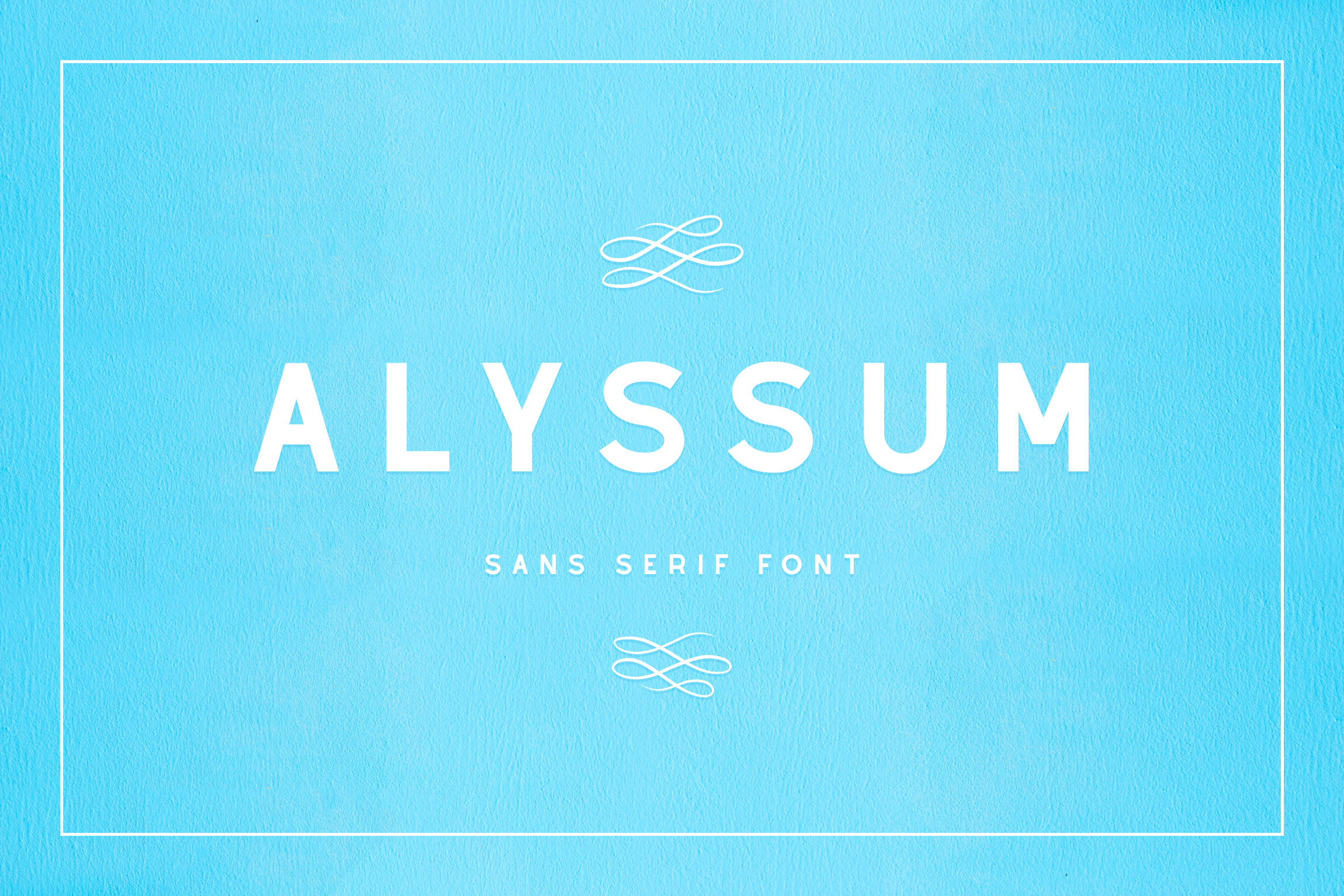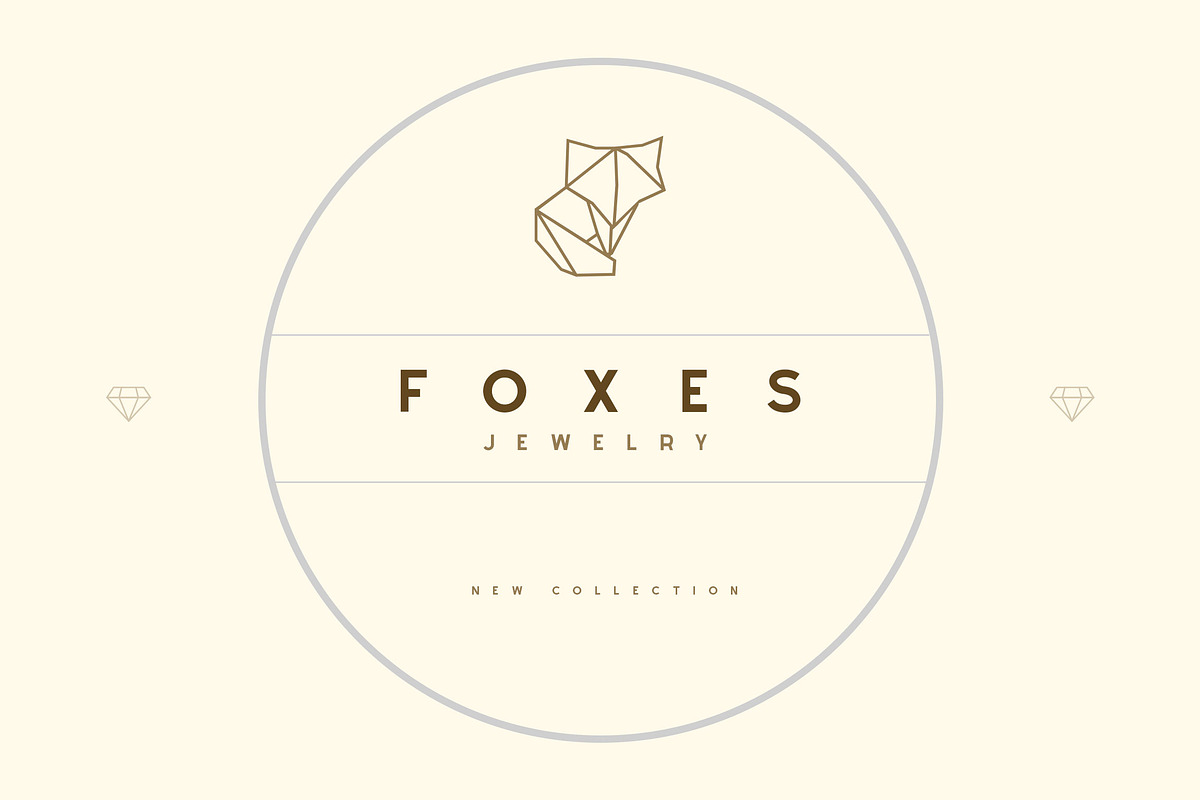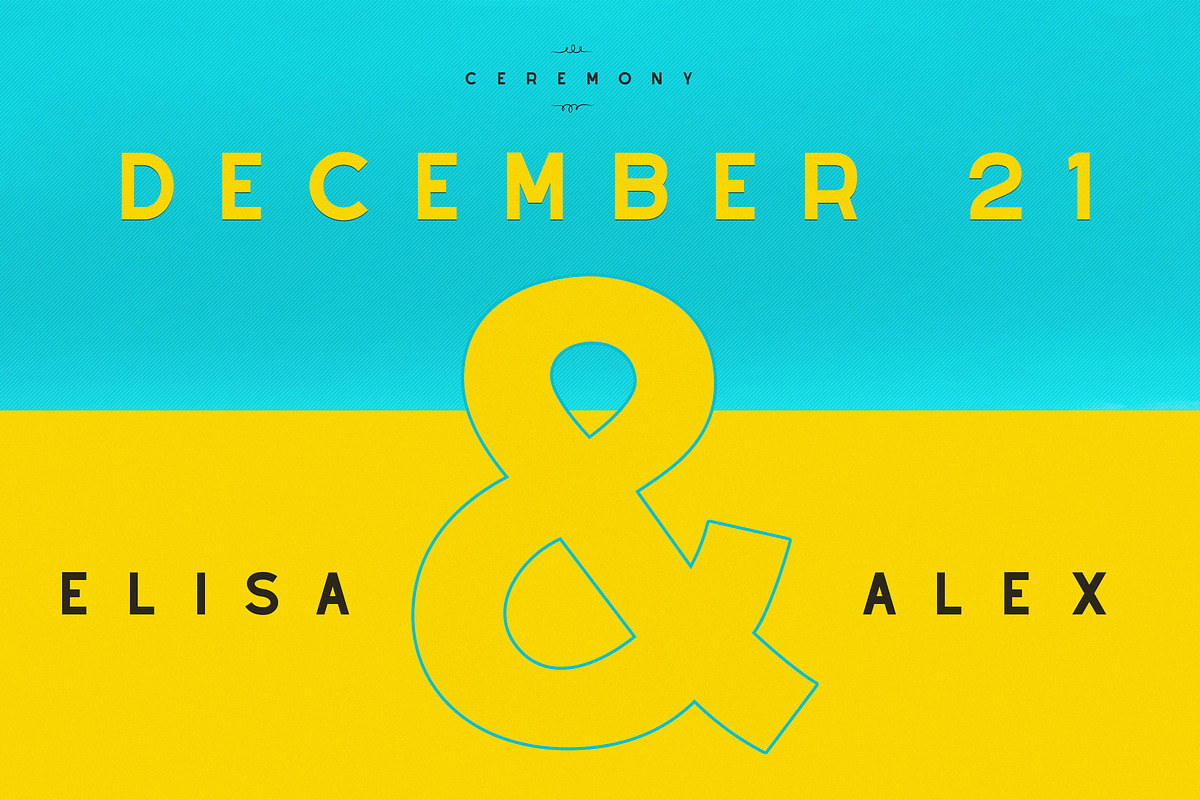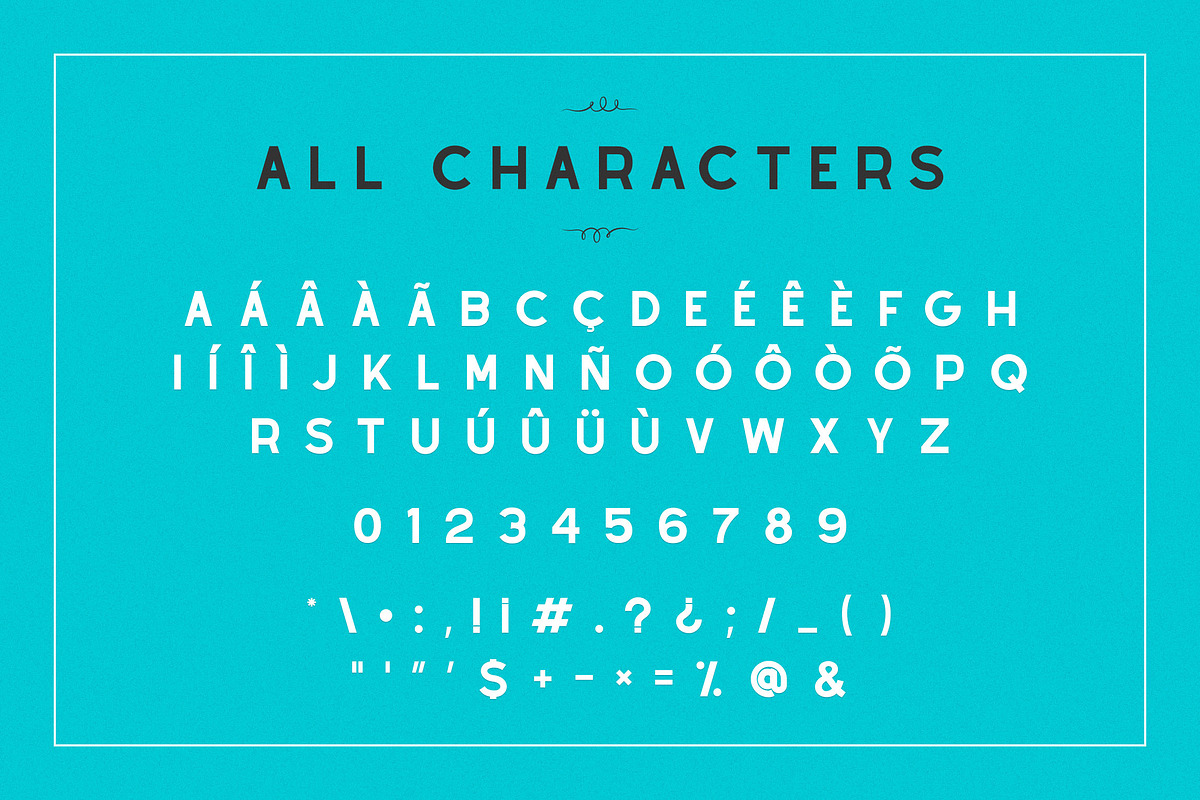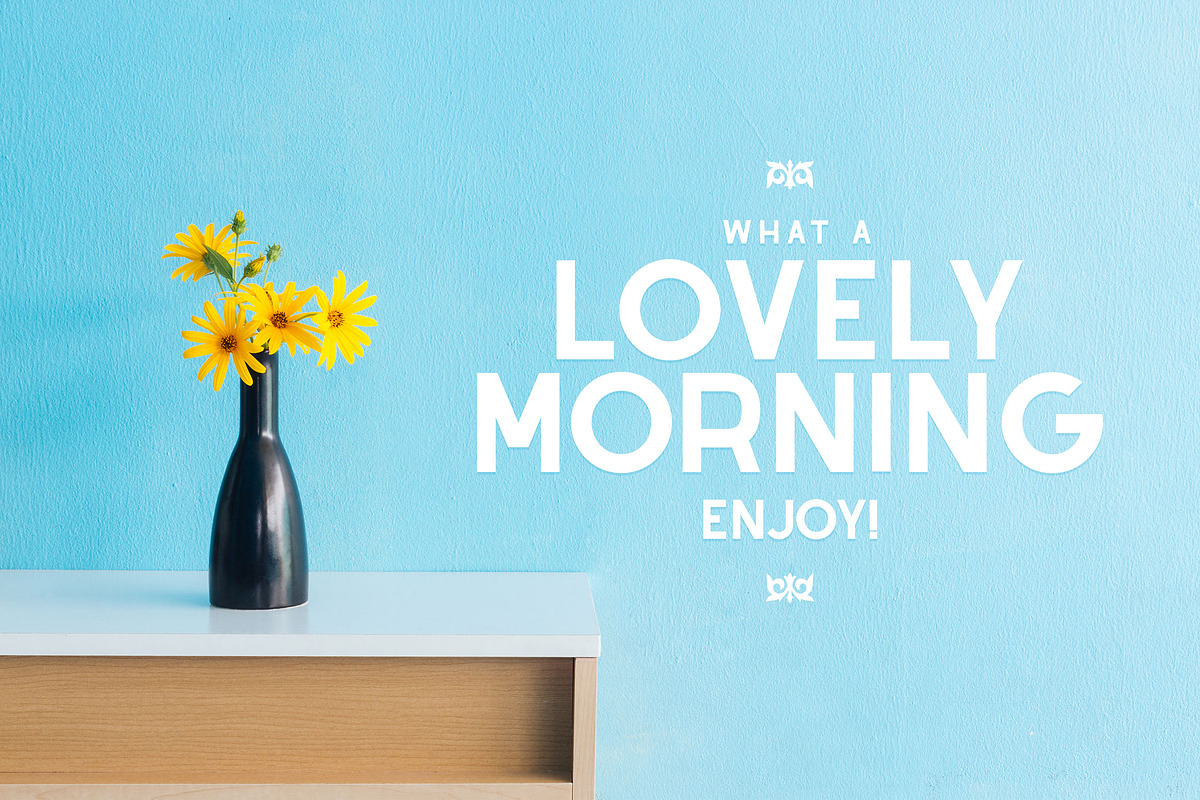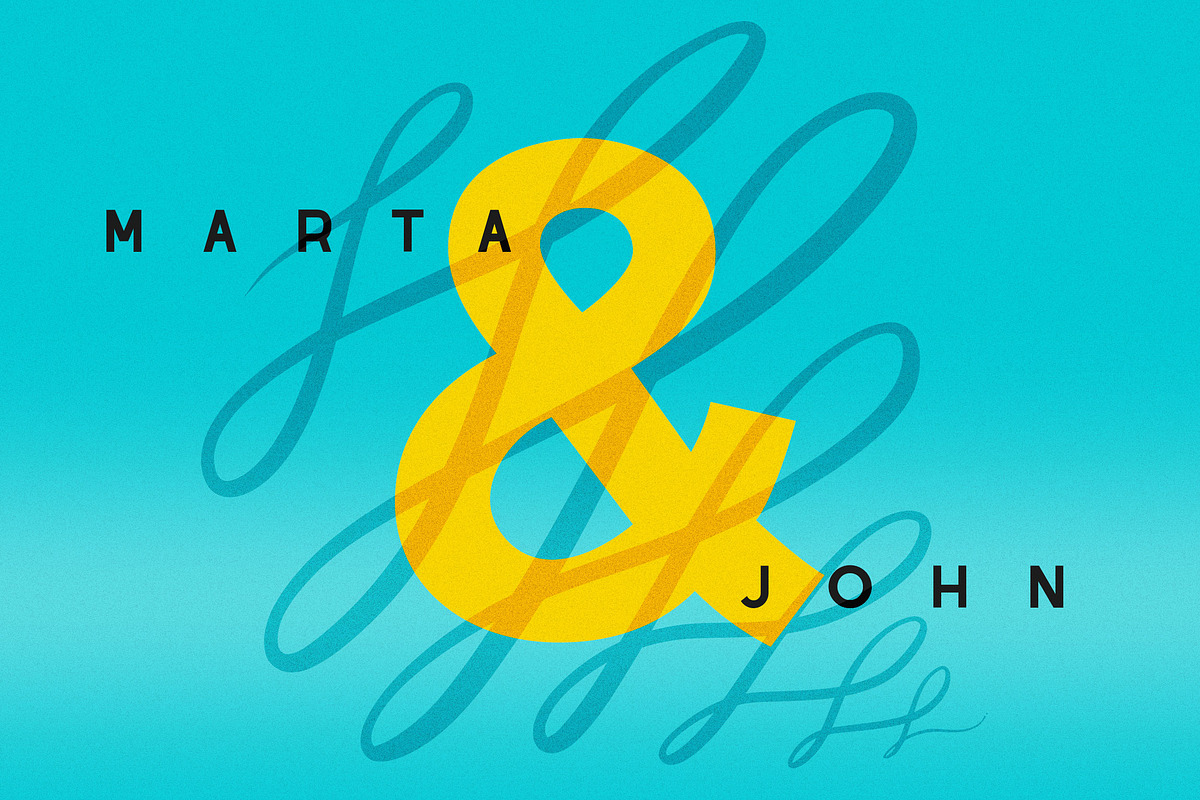
Alyssum - Sans Serif Font
Introducing: Alyssum is a beautiful delicate sans serif font that looks great for different styles and moods, from wedding to logos. It also looks great with wide-set spacing characters!
Language Support: English, Portuguese and Spanish.